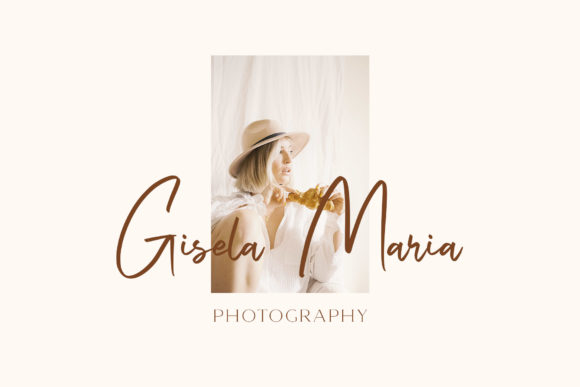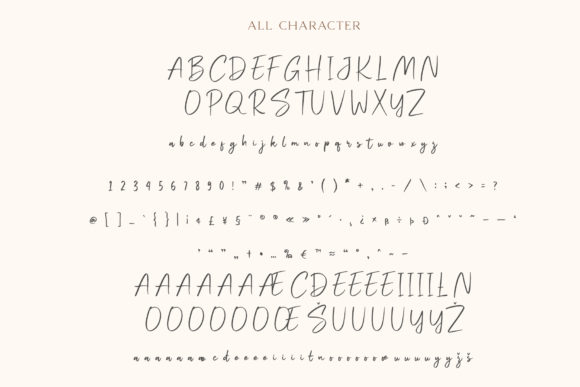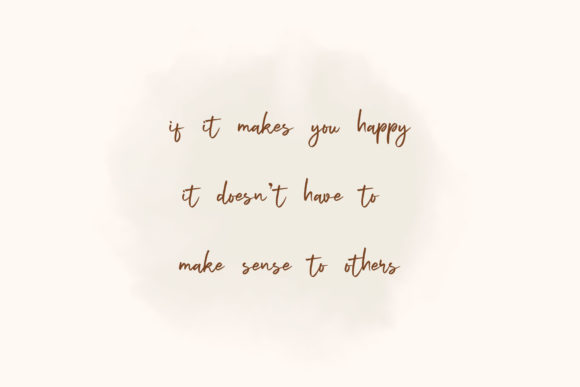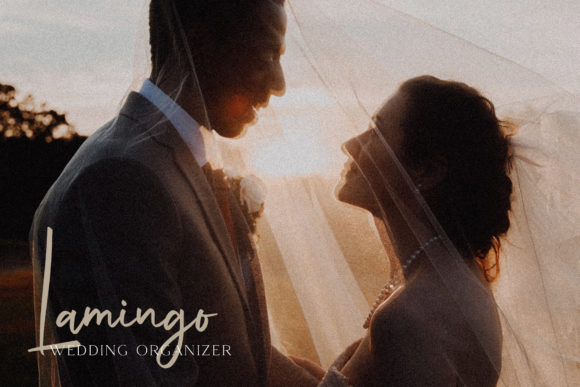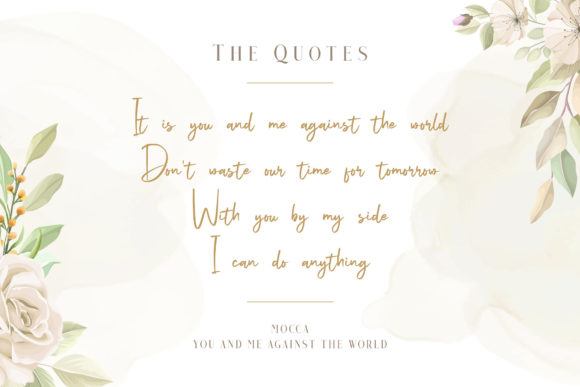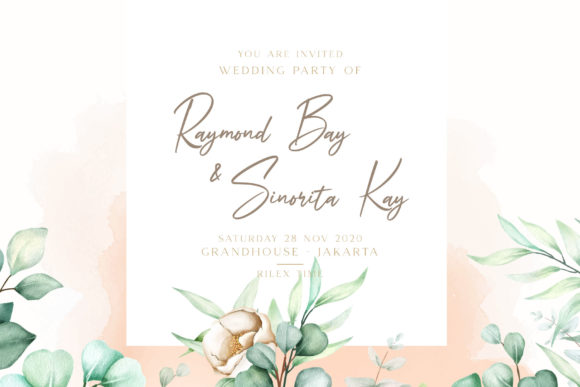
Introduction to Signatey Font
Signatey is a modern handwritten font.
Add it to your most creative ideas and notice how it makes them come alive .
Key Features of Signatey Font
Why Choose Signatey Font?
Signatey Font offers exceptional quality and versatility, making it a valuable addition to your design toolkit. Whether you’re creating for personal projects or commercial use, Signatey Font delivers professional results.